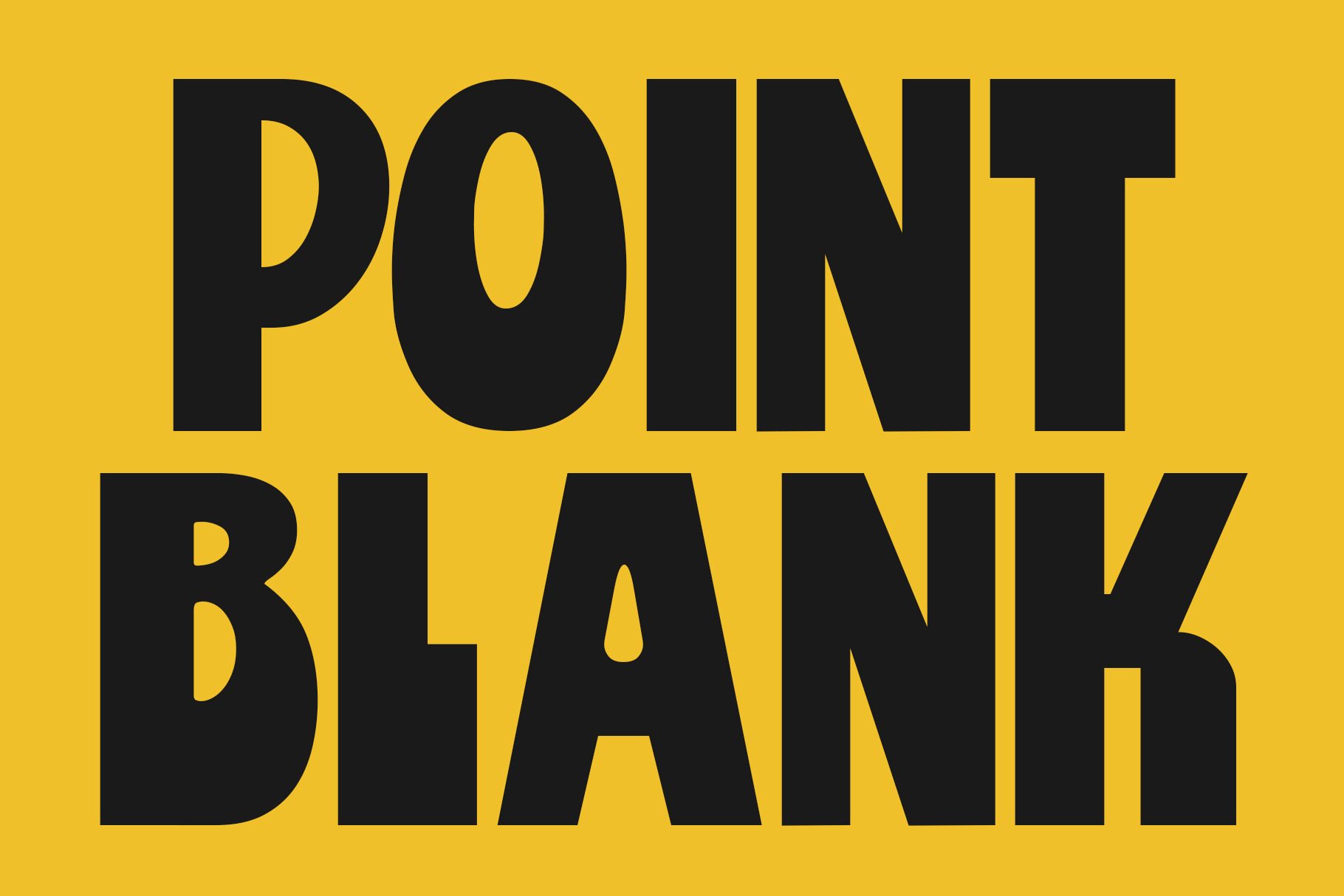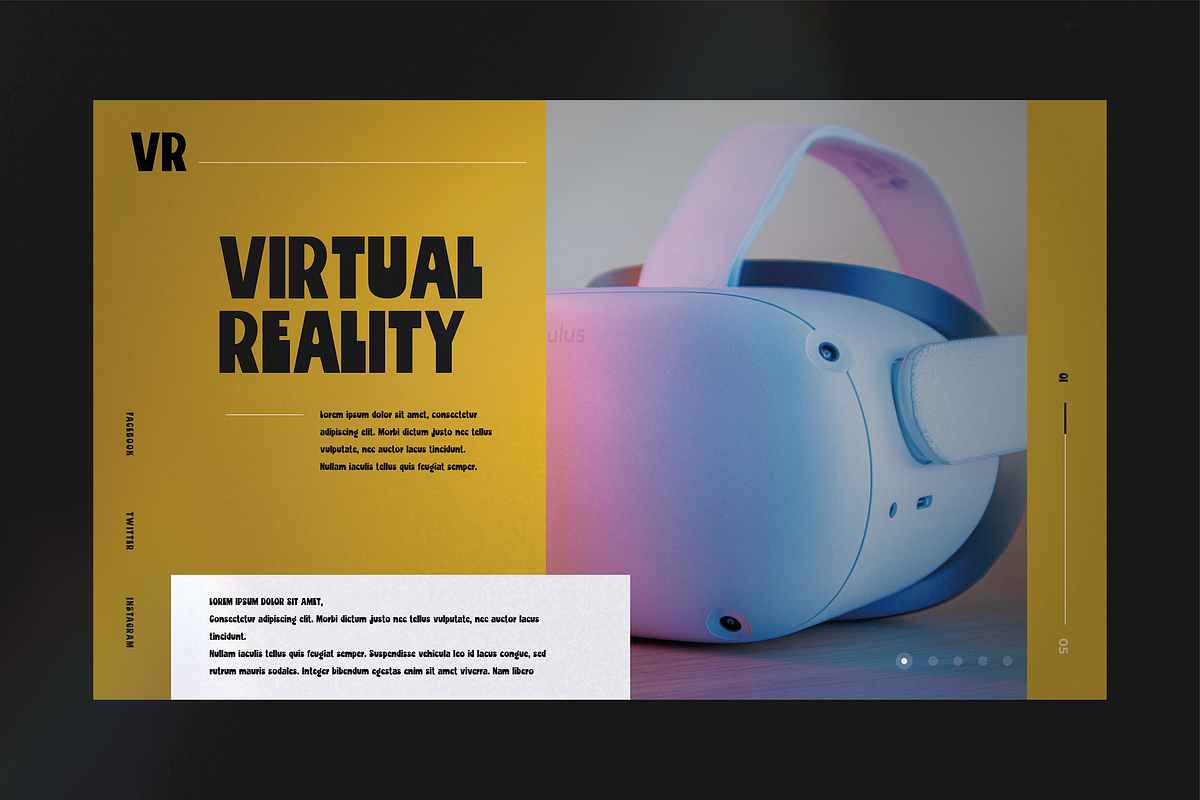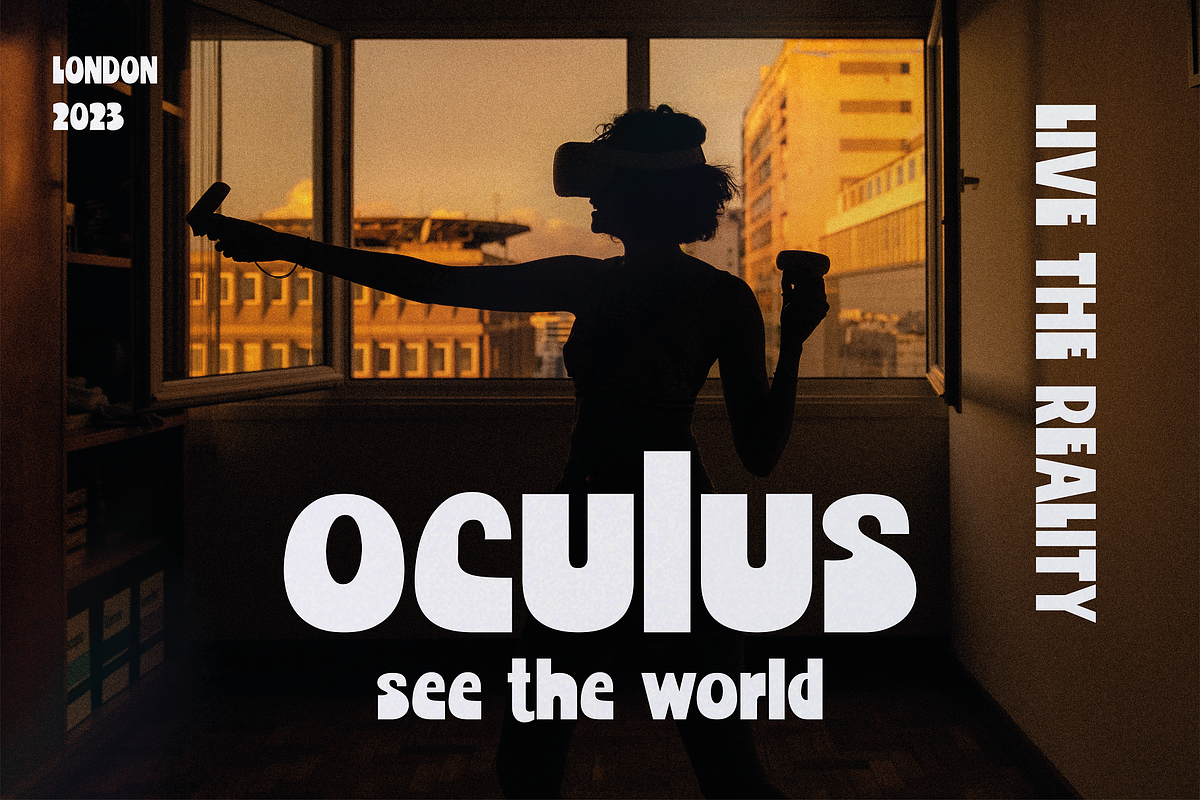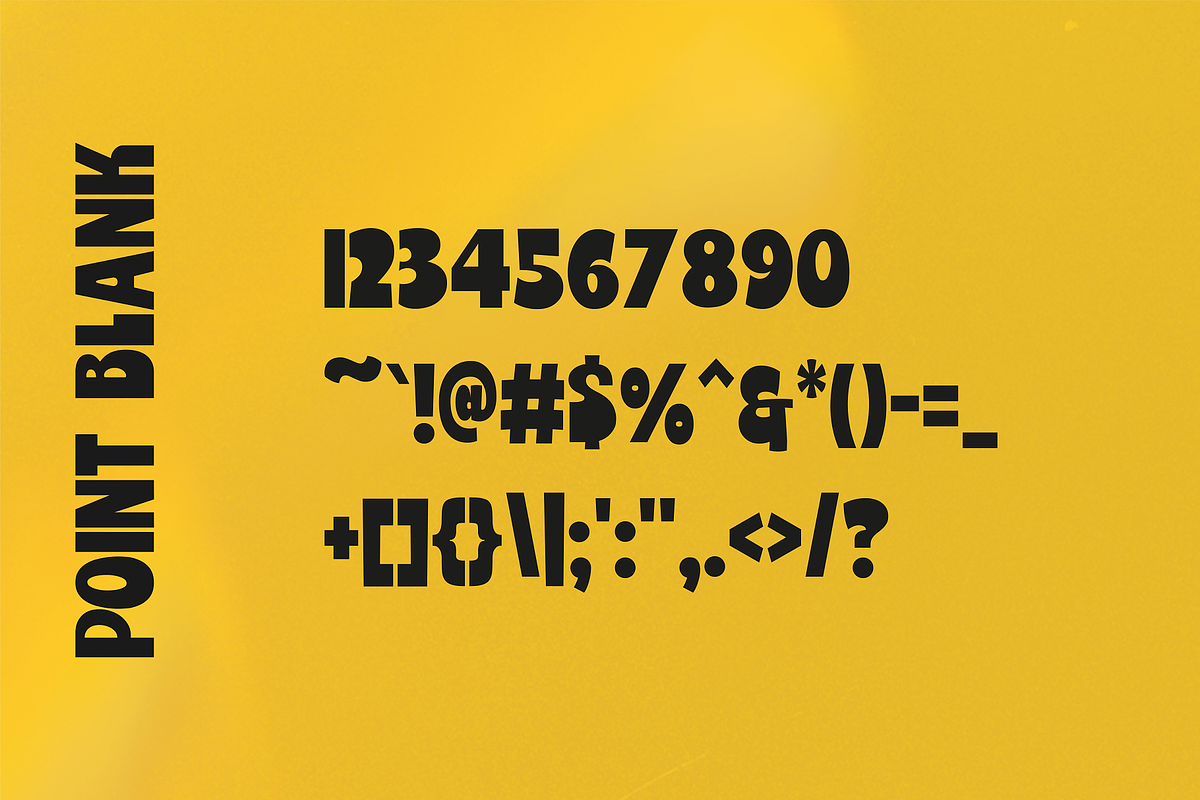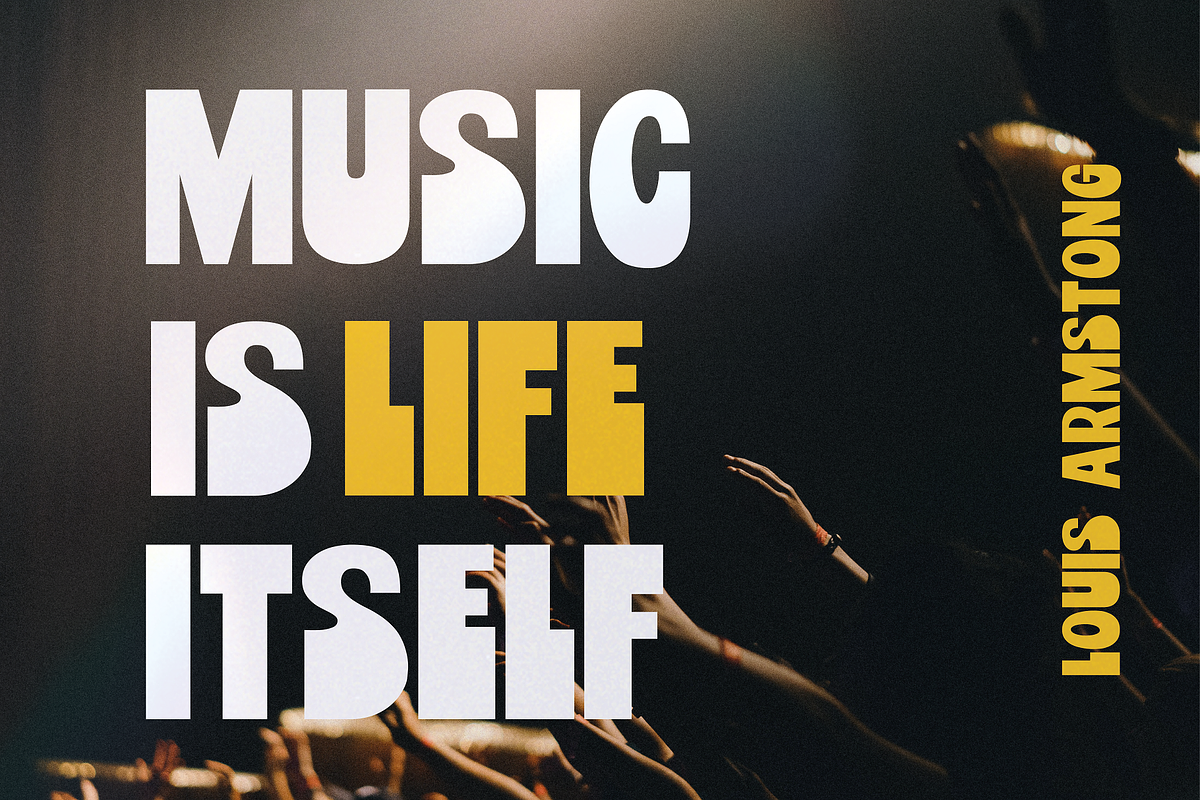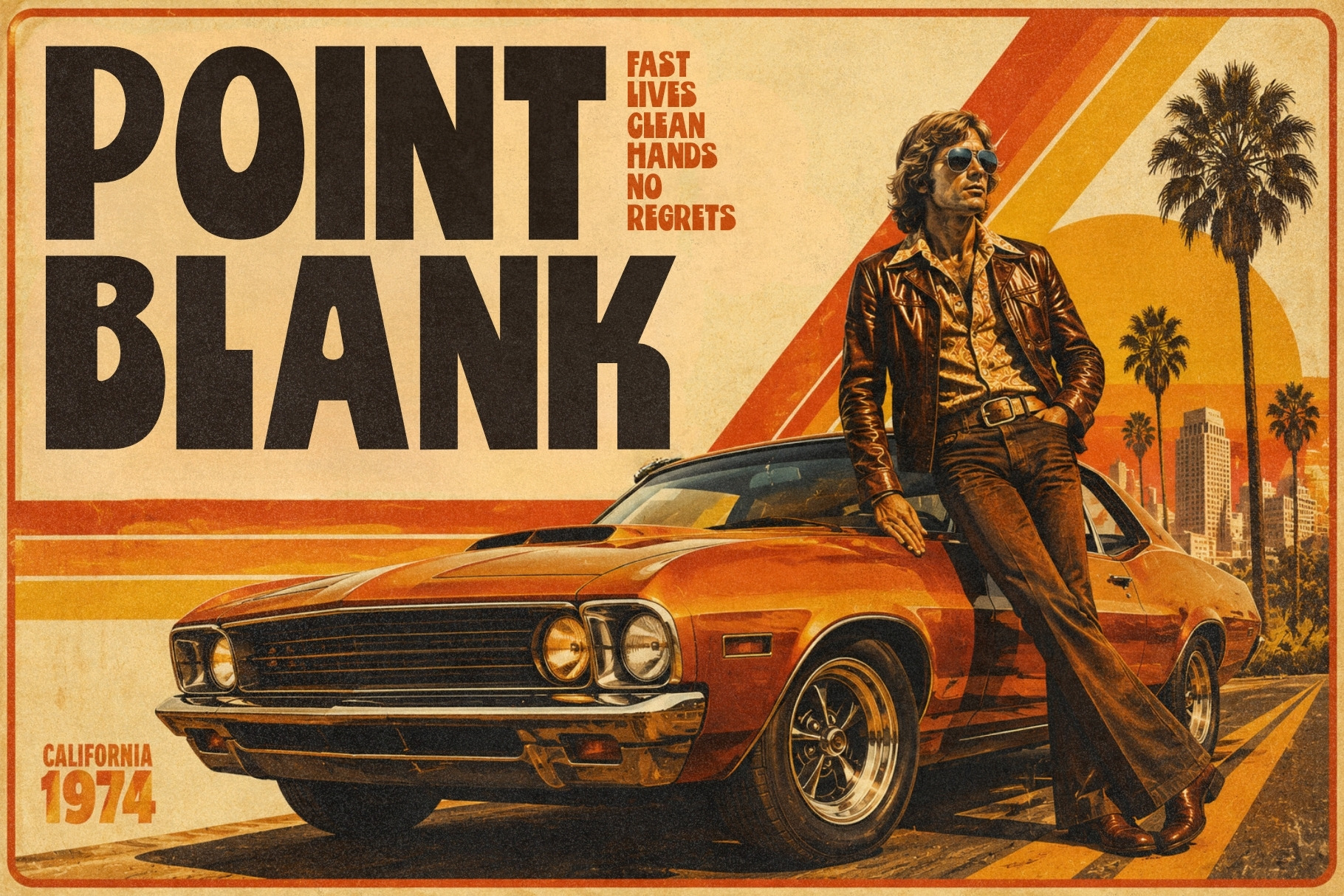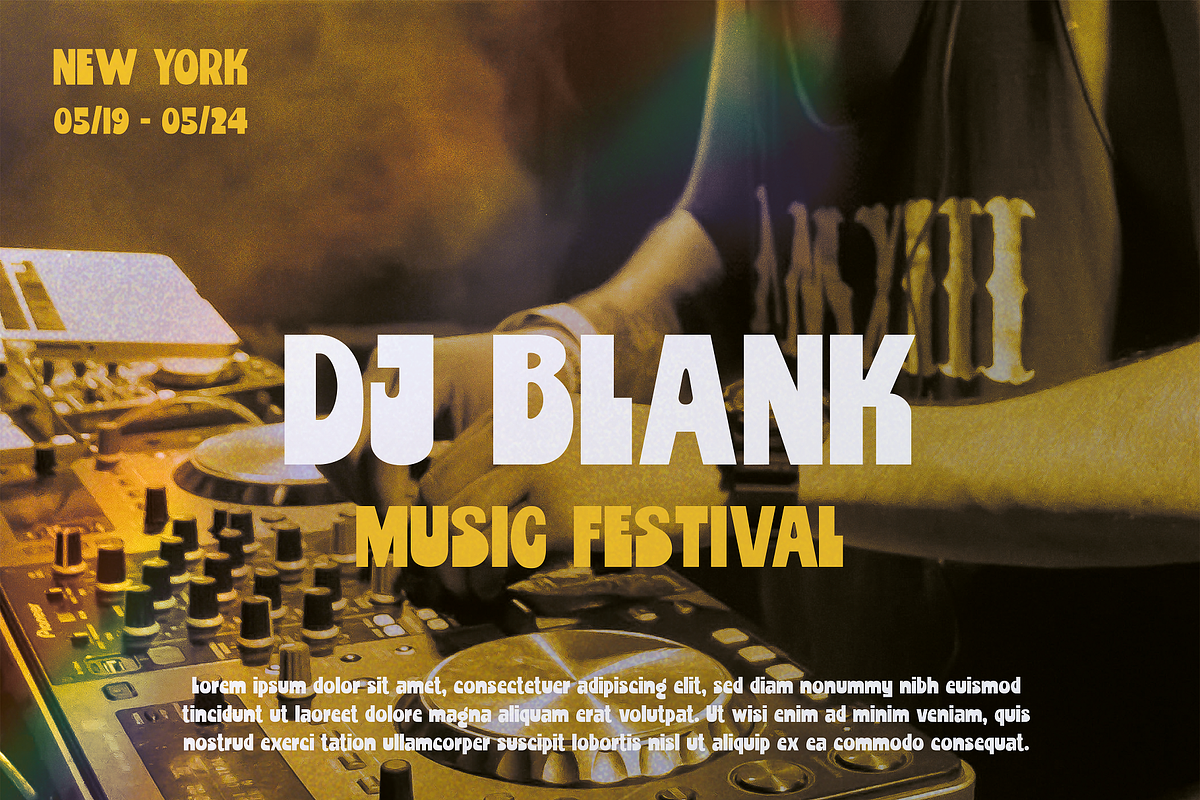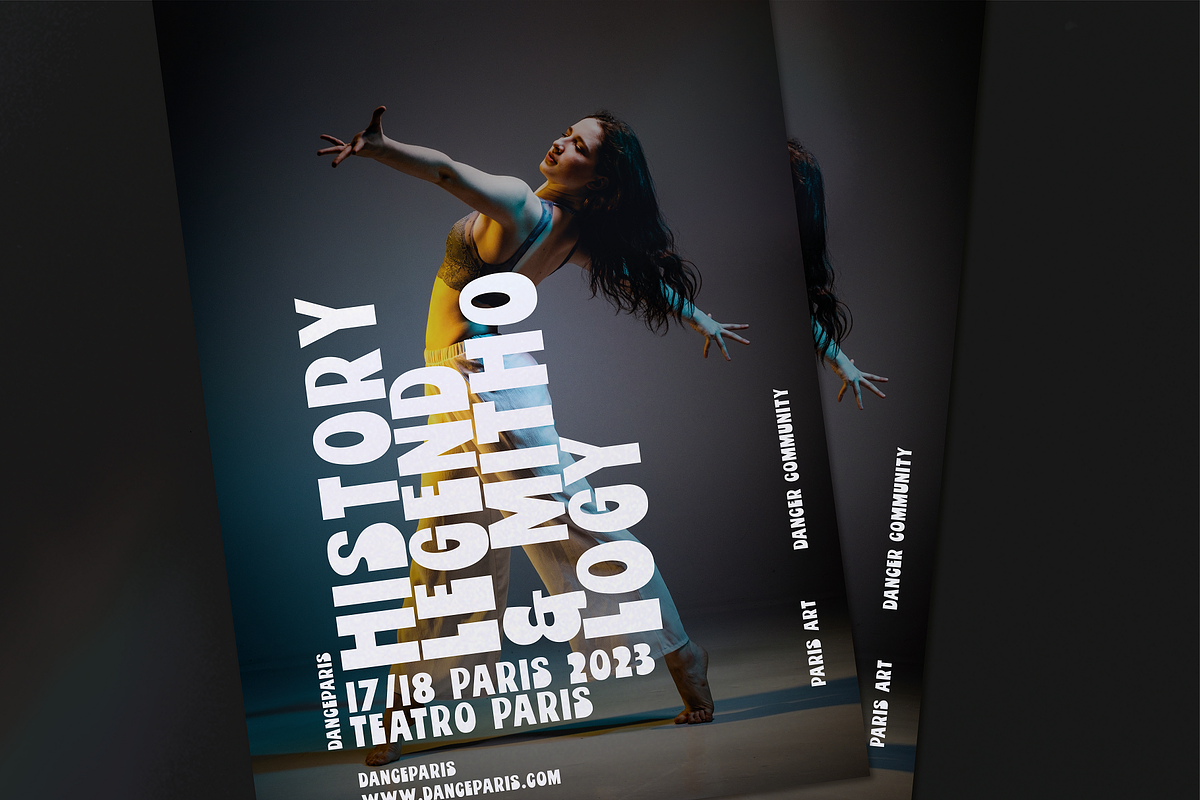
Point Blank - Display Typeface
Point Blank is a big, bold, unapologetically funky display typeface that reaches deep into the visual soul of the 1960s and 70s and pulls out everything worth keeping — the chubby letterforms, the confident swagger, and that irresistible sense that good design should also be fun.
Built for impact, Point Blank commands attention wherever it lands — posters, logos, product labels, packaging, album artwork, and anywhere else a design needs to walk into the room and own it. Its thick, rounded forms carry an era-defining warmth that feels both nostalgic and surprisingly fresh against contemporary layouts.
Retro in spirit but endlessly adaptable in practice, Point Blank is the typeface for designers who understand that the boldest creative choices are often the most timeless ones.